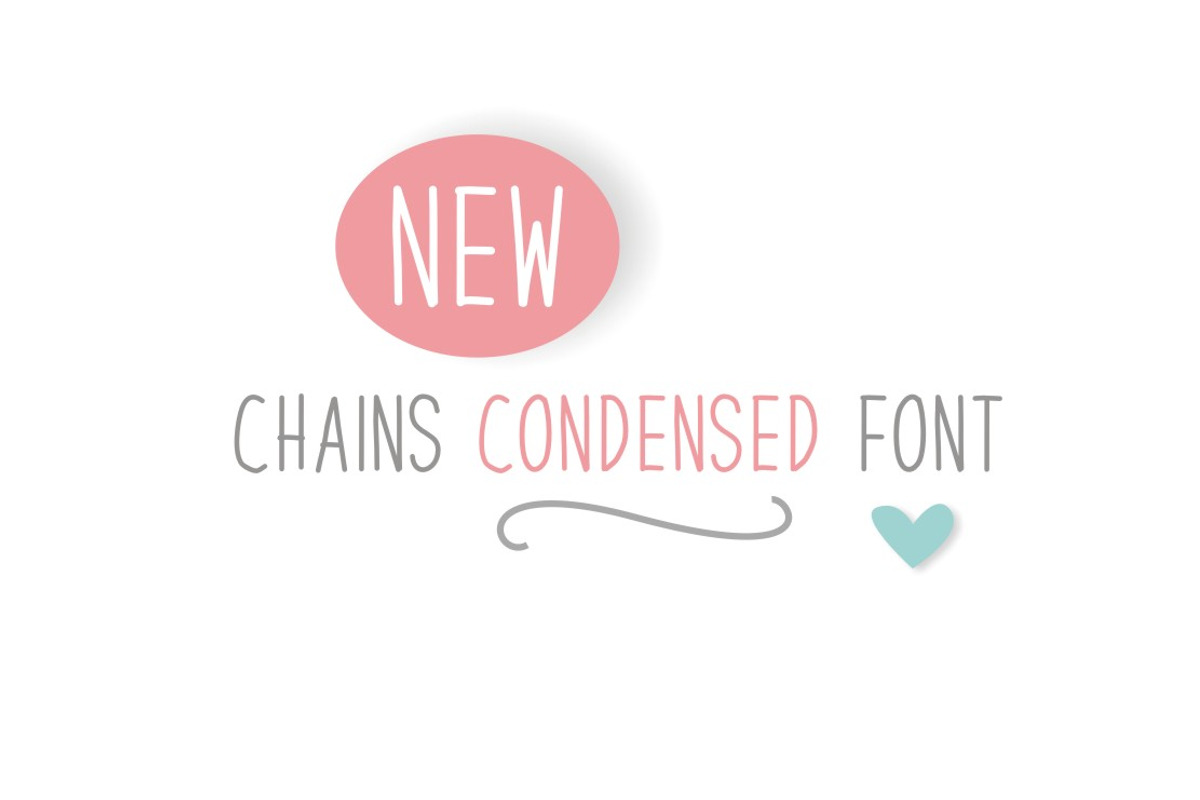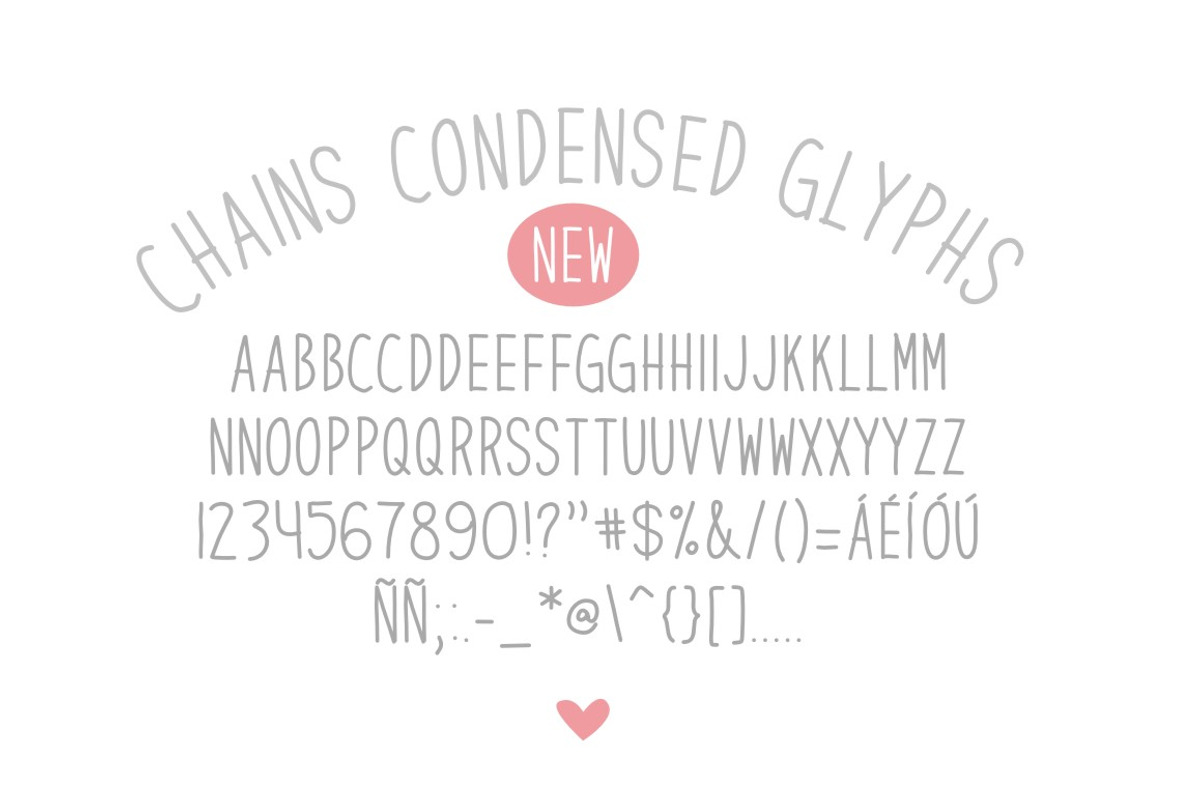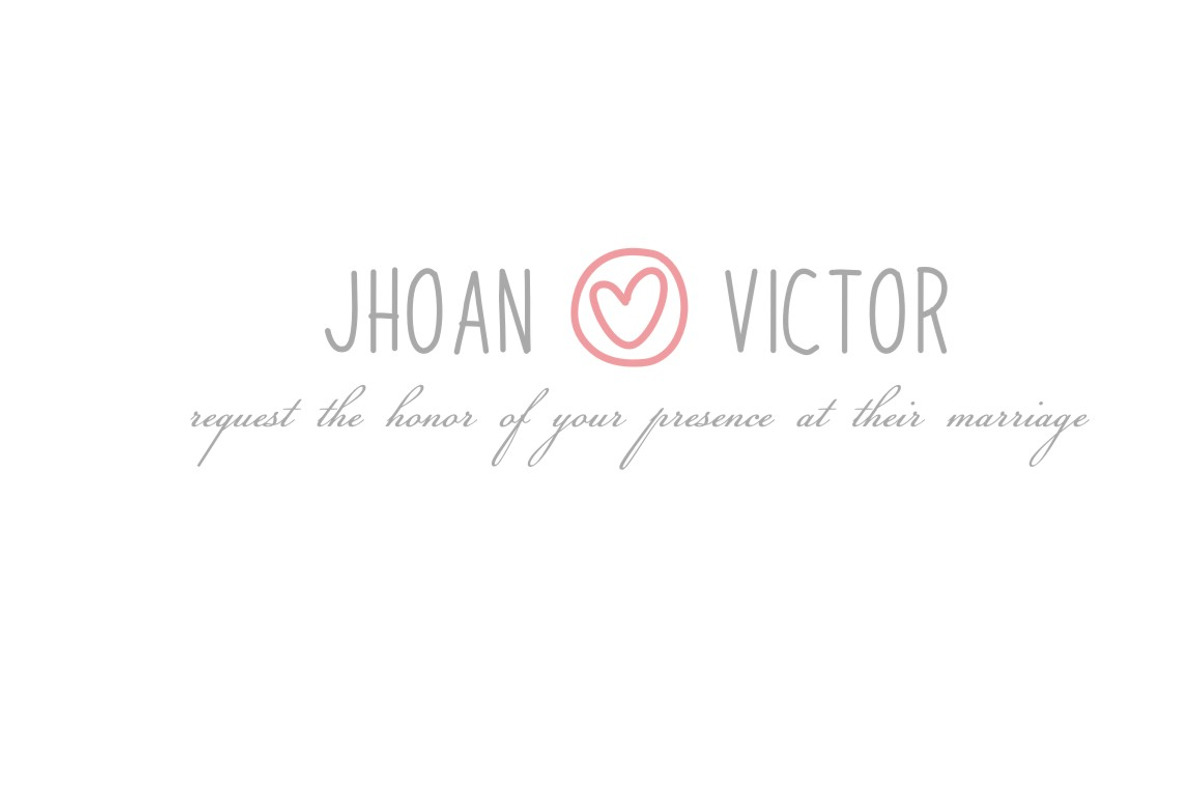
Chains Condensed
Chains Condensed by Fonts & Printables is a font selected for branding, posters, packaging, typography.
Why Chains Condensed is worth a look
Chains Condensed by Fonts & Printables fits naturally into Branding, posters, packaging, typography.